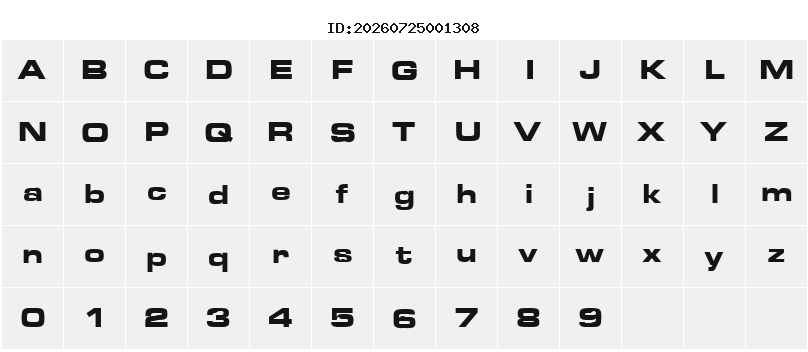
Green Mountain 3 Preview
• Font Name: Green Mountain 3
• Full Font Name: Green Mountain 3
About Green Mountain 3.ttf
Green Mountain 3.ttf is a modern, elegant sans-serif font designed for ultimate readability and visual harmony. Perfect for branding, headlines, web design, and print materials.